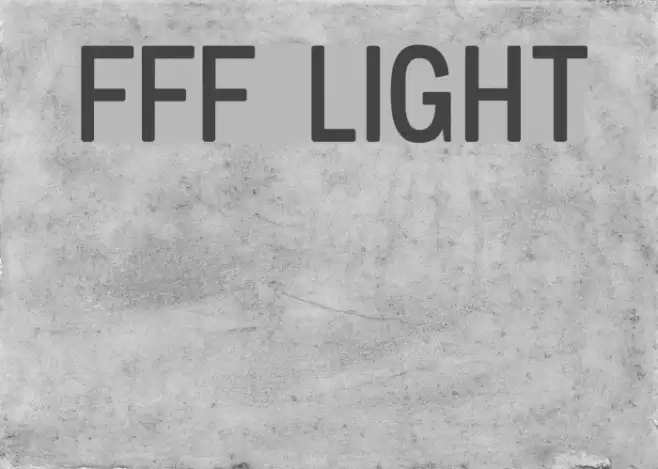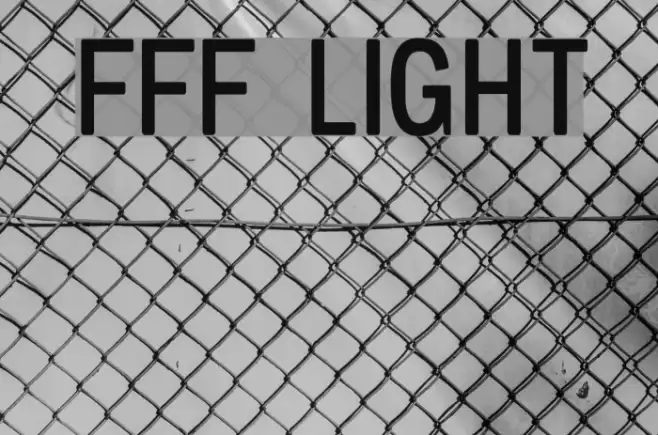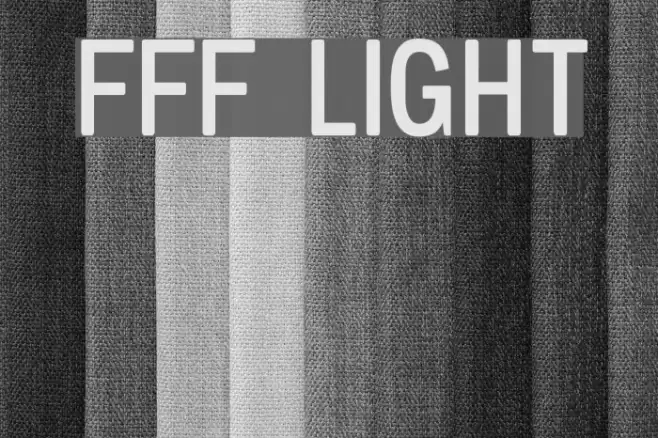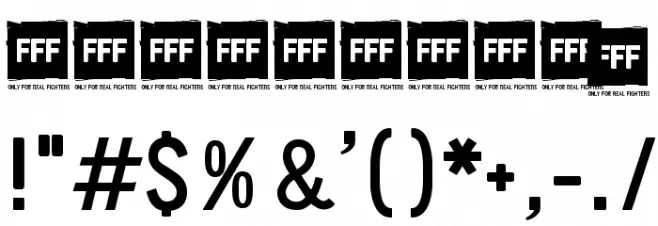
FFF Light Font
FFF Light Description
This font exhibits a clean and modern sans-serif style, characterized by its uniform stroke width and geometric shapes. The uppercase and lowercase letters maintain a consistent height and width, providing a balanced and harmonious appearance. The numerals and special characters are designed to complement the alphabet, ensuring readability and versatility across various applications. The overall design is minimalistic, making it suitable for contemporary design projects.
A modern sans-serif font with a clean, geometric design from Uncategorized fonts.
- Proposed Projects: Ideal for branding, web design, advertising, and editorial layouts due to its clarity and modern aesthetic.